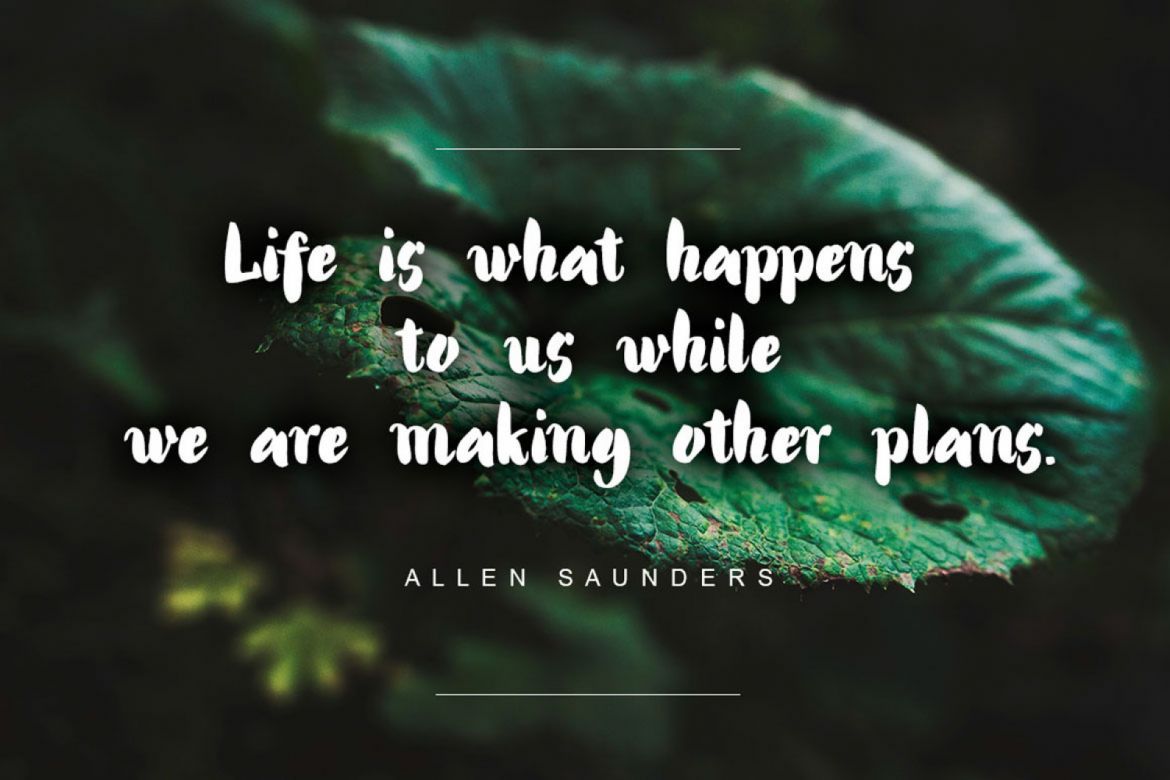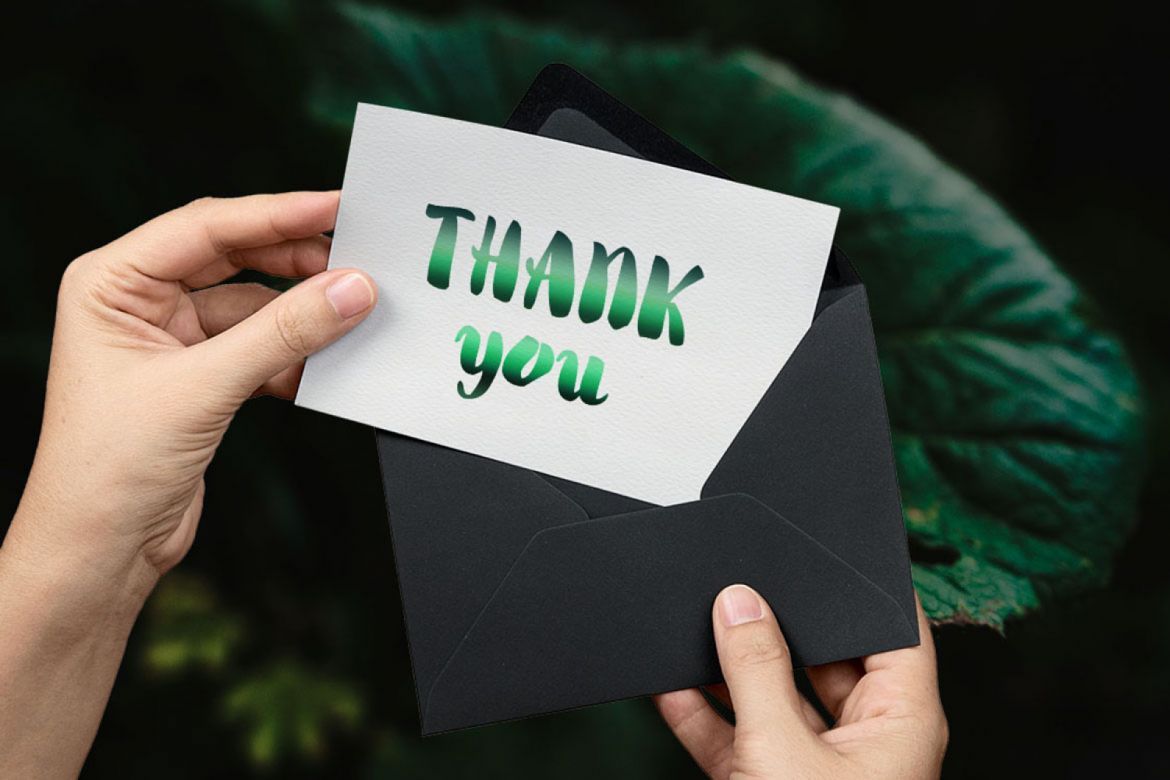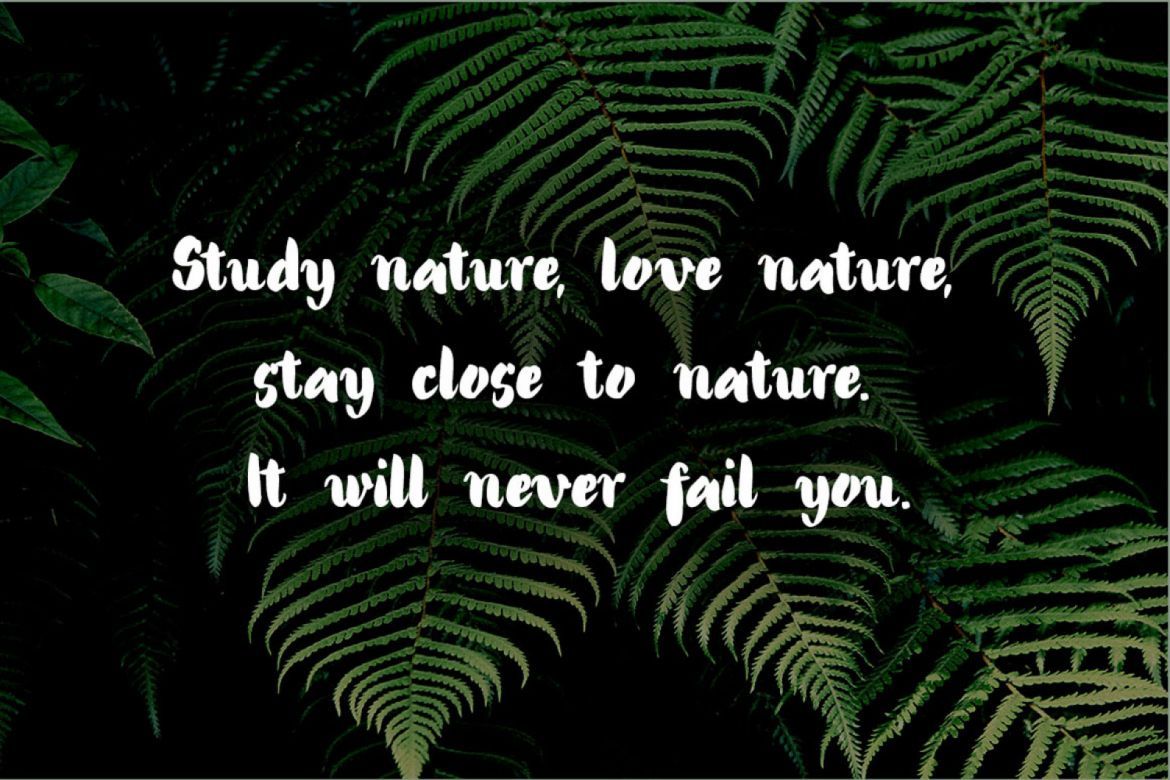
Alanta Bold Handwritten Font
Alanta font was handwritten with brush pen and will look great on branding design, posters, apparel, for logotype, website header, fashion design and any more.
• good for logo-type, labels, headlines
• multilanguage support - is included for western and central european languages